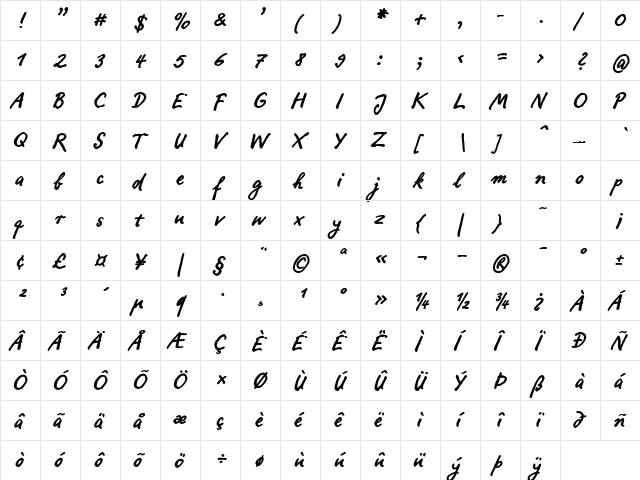
Ropsen Script Bold Regular Font Preview
Design Context for Ropsen Script Bold Typeface
Ropsen Script Bold brings a calligraphic fluidity to the page — its connecting strokes and expressive curves give it an unmistakably human quality. Its bold stroke weight gives it real presence on the page.
Font Pairing: Combine Ropsen Script Bold with a simple geometric sans for maximum contrast — the tension between flowing curves and clean structure is a classic typographic pairing.
Pro Tip: Pair Ropsen Script Bold with a clean sans-serif for supporting text. The contrast between fluid script and geometric structure creates an elegant typographic hierarchy.